Looking for that classic charm in your designs? Retro fonts bring a wave of nostalgia that transforms any modern design into a timeless visual story. Whether you’re building a brand, designing social media creatives, or creating posters, retro typefaces deliver a bold, character-rich aesthetic.
In this article, we’re featuring 6 handpicked free retro fonts that you can start using today. These fonts are perfect for creatives in the USA, UK, and Canada looking to add vintage elegance to their work—without spending a dime.
Caooli
Caooli mixes bold strokes with elegant curves, making it ideal for fashion branding, editorial titles, and luxury packaging. This serif font feels vintage but with a high-fashion twist—great for clients who want “old is gold” but polished for modern times.
Perfect for: Magazine covers, portfolio titles, wedding invites
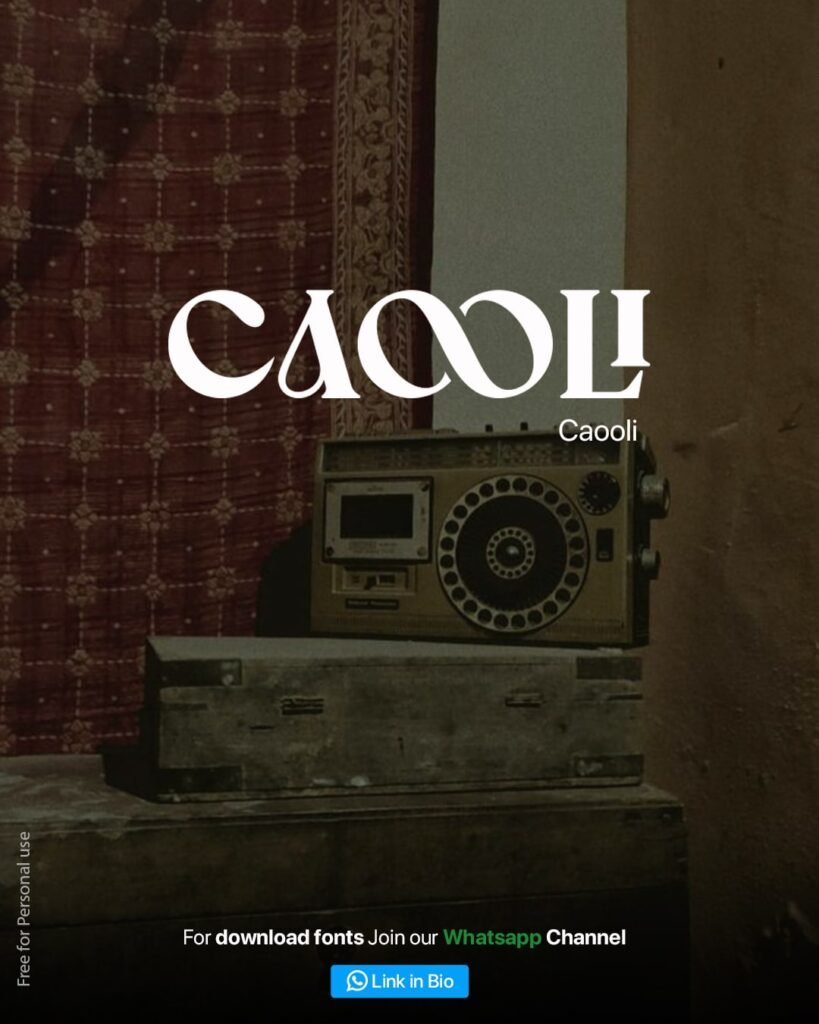
Delago
Delago screams urban retro. With sharp serifs and condensed proportions, it’s bold enough for headlines and branding, yet versatile for modern creatives who want a ’70s-‘80s blend.
Perfect for: Logos, flyers, album covers
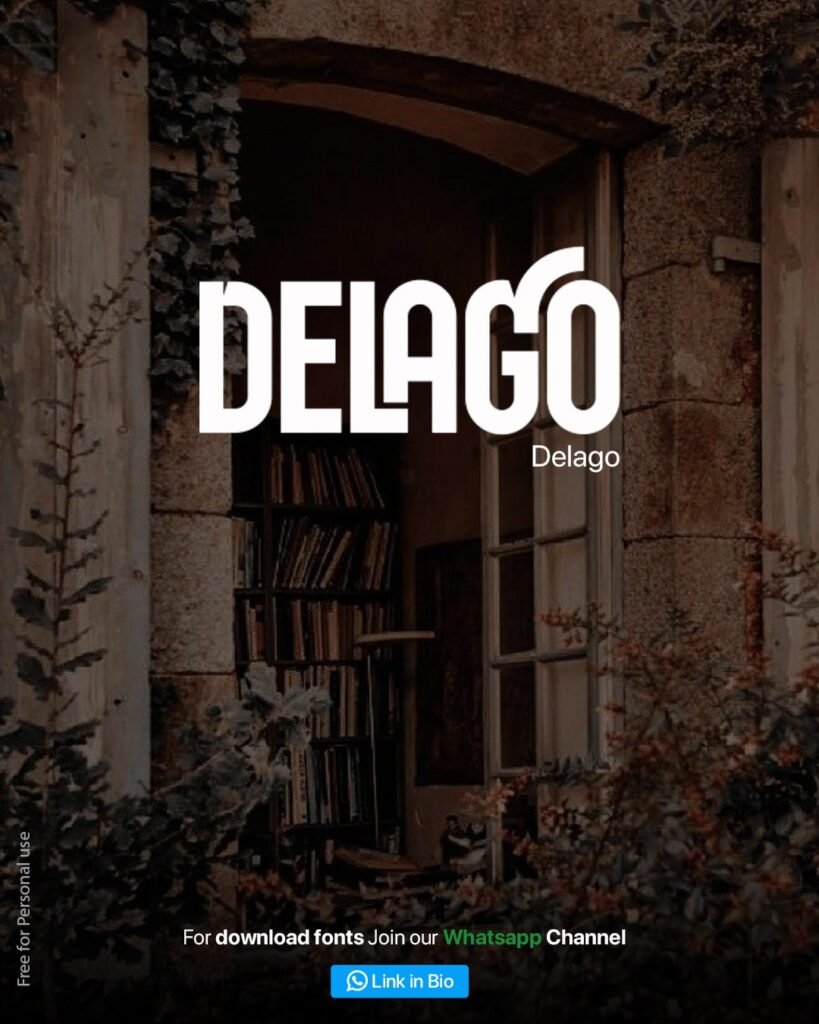
Erakov Display
Bold and expressive, Erakov Display has that vintage billboard vibe. Use it where attention matters most—on hero banners, startup names, or even in motion graphics.
Perfect for: Startup branding, signage, animations
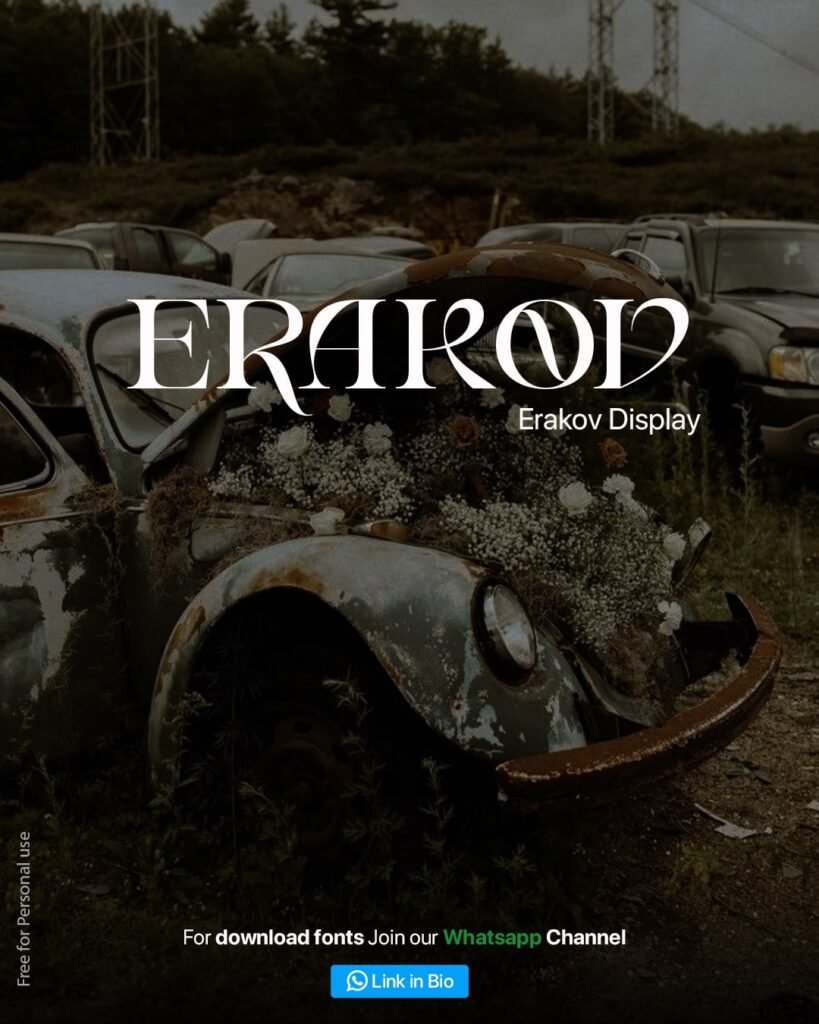
Monache
Inspired by old phonographs and cinematic nostalgia, Monache is a warm serif that blends softness and class. If you love storytelling through visuals, this one’s your type.
Perfect for: Instagram carousels, art galleries, or retro ads
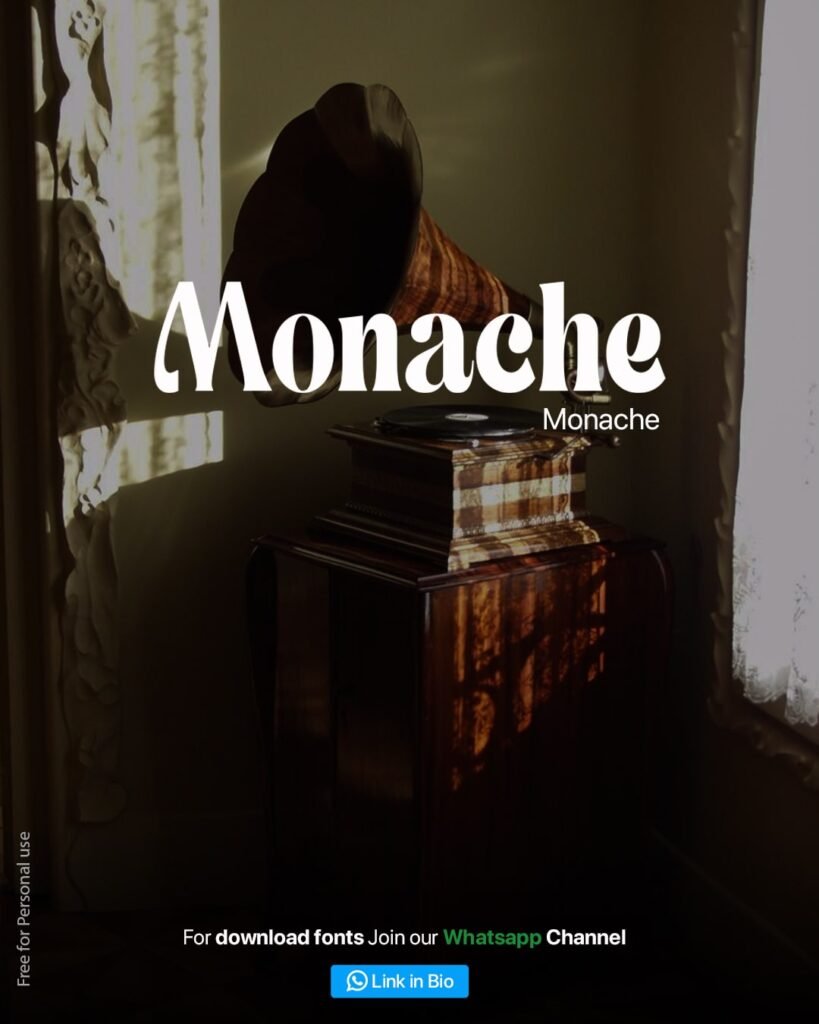
Grefal
Grefal captures mid-century charm with its unique ligatures and elegant serif forms. It adds a handwritten feel while keeping a professional tone.
Perfect for: Boutique branding, coffee packaging, posters
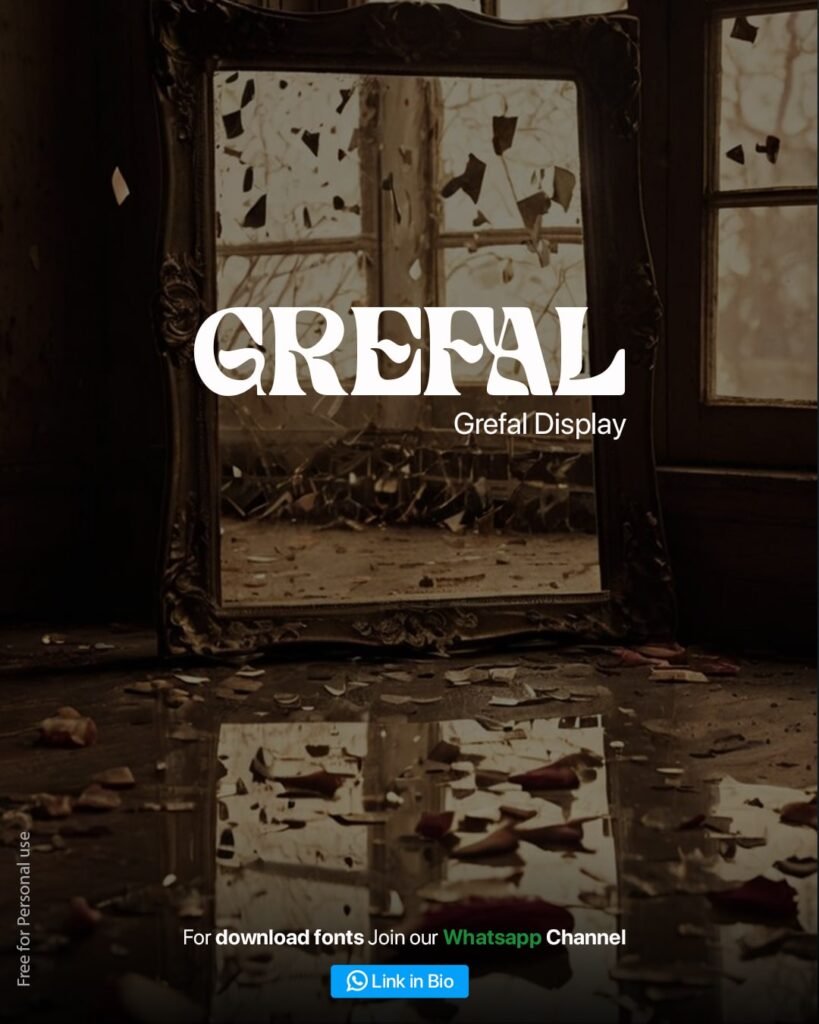
Chales Rientta
This one’s a statement piece. Chales Rientta brings punchy, geometric shapes that work amazingly for product branding or editorial content. Think of it as retro meets experimental.
Perfect for: Product names, editorial layouts, YouTube intros
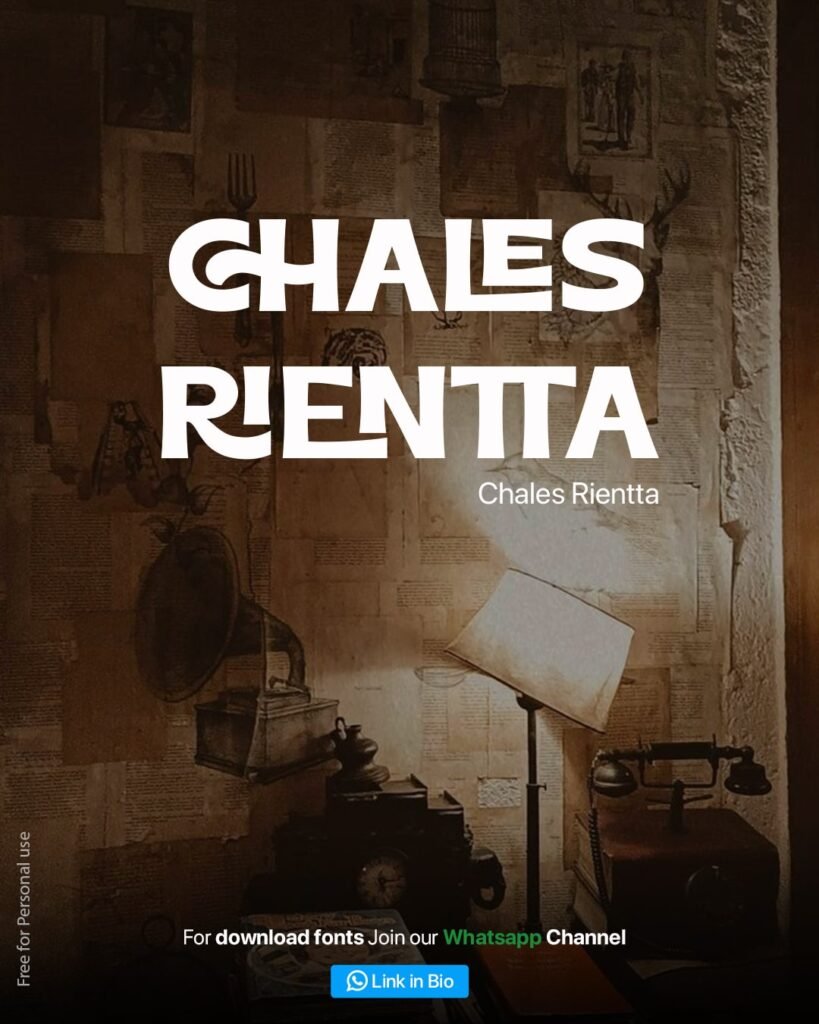
Why Use Free Retro Fonts?
Retro fonts aren’t just about aesthetics—they’re about emotional connection. For your US/UK/Canada clients, retro fonts evoke feelings of trust, heritage, and authenticity. Whether you’re building a coffee brand in Toronto or a design agency in Texas, these fonts help you stand out with style.